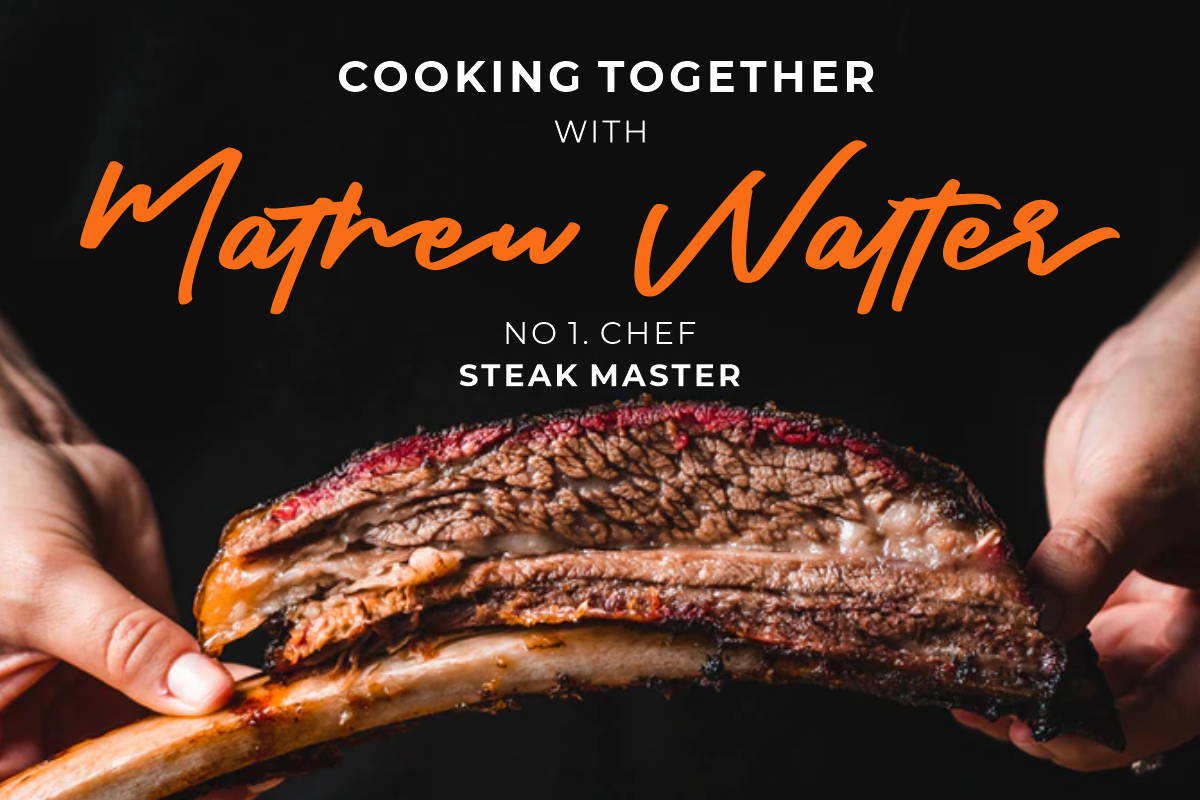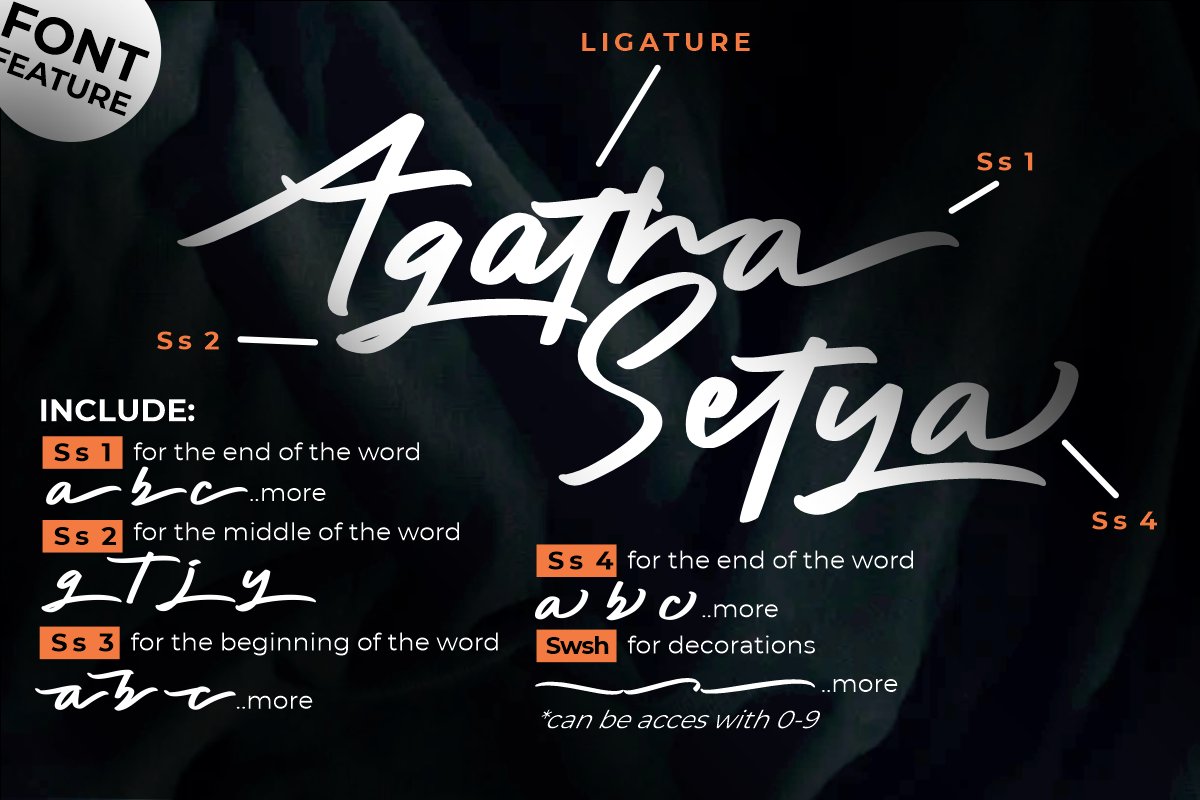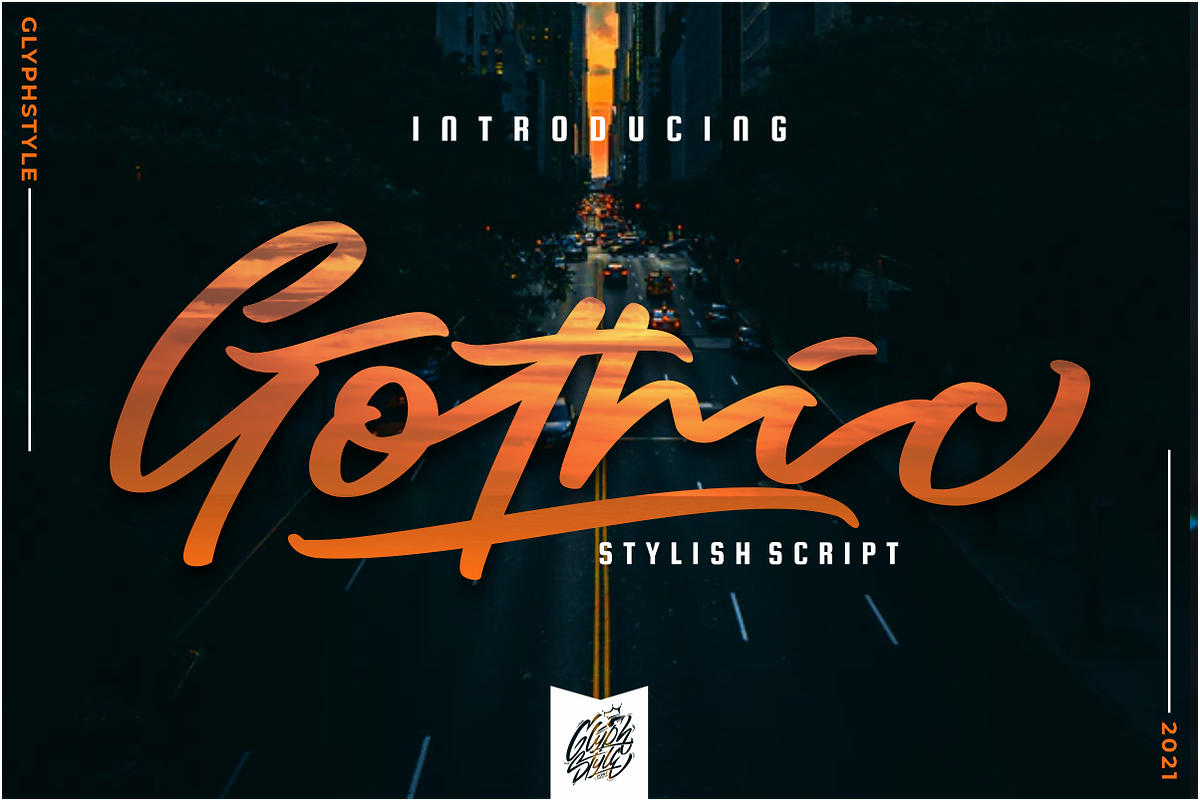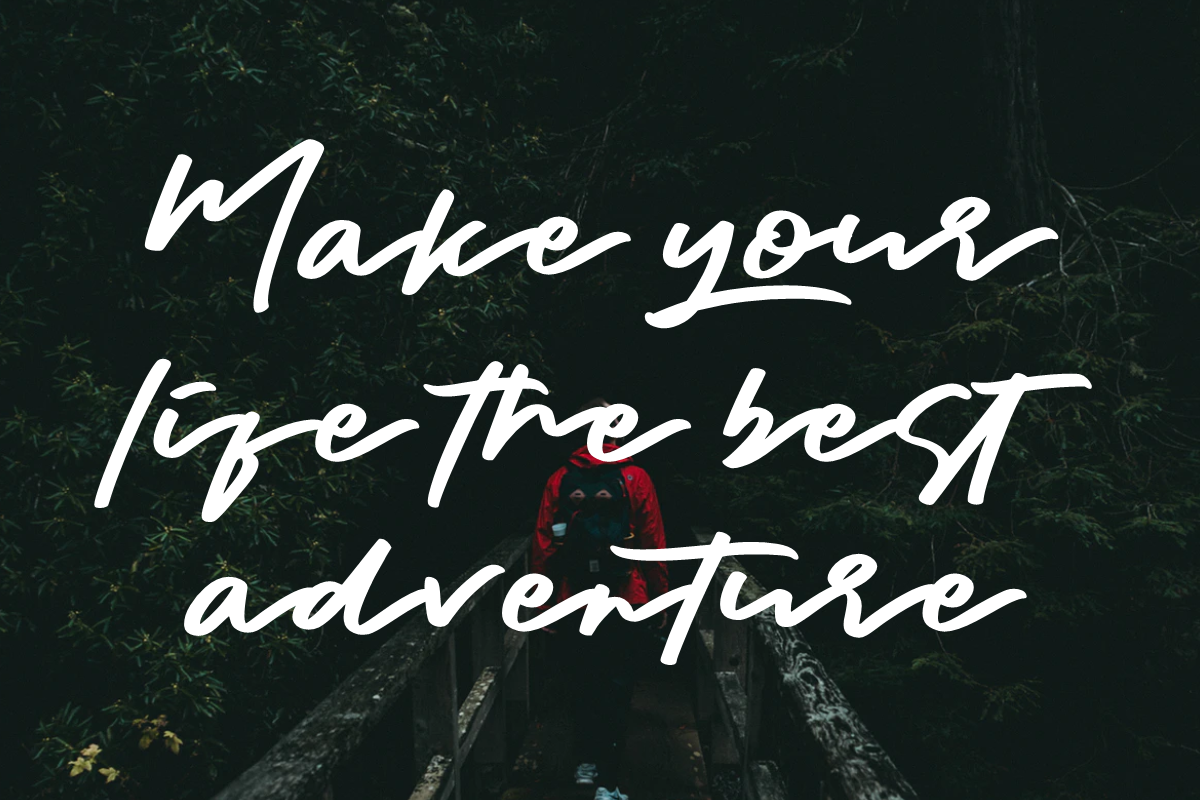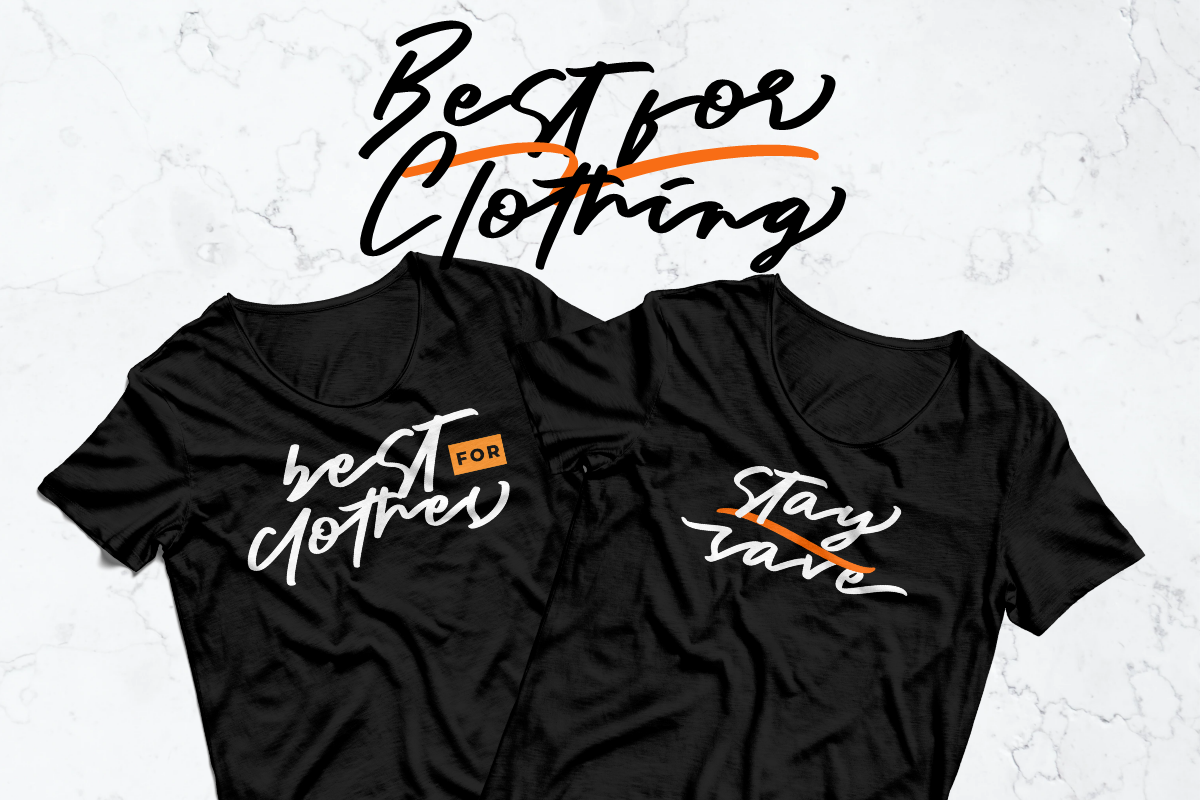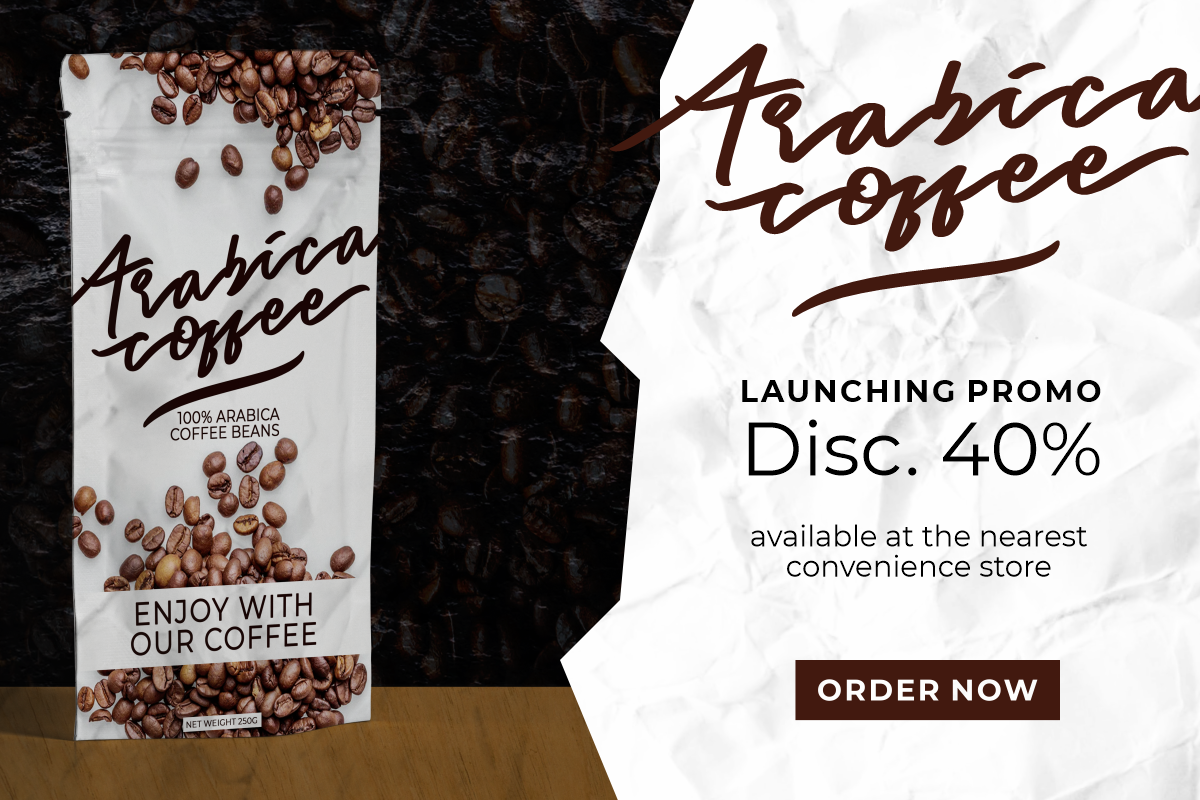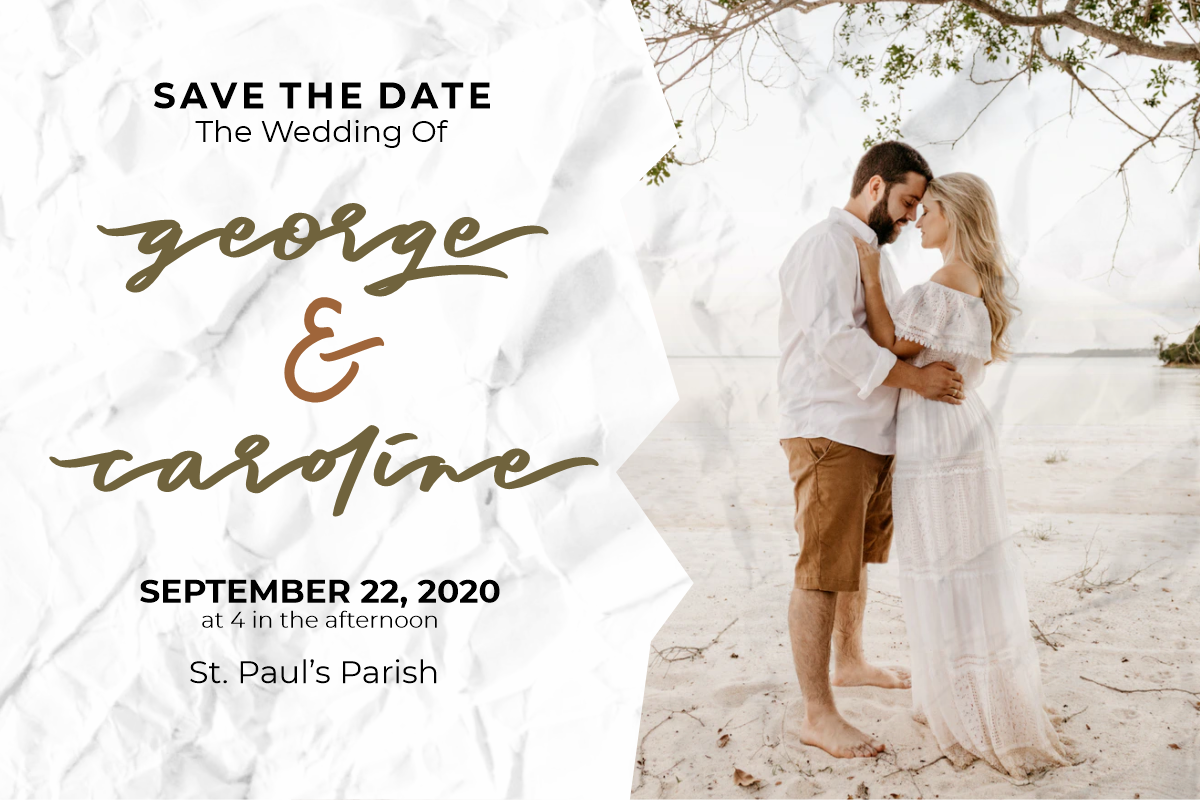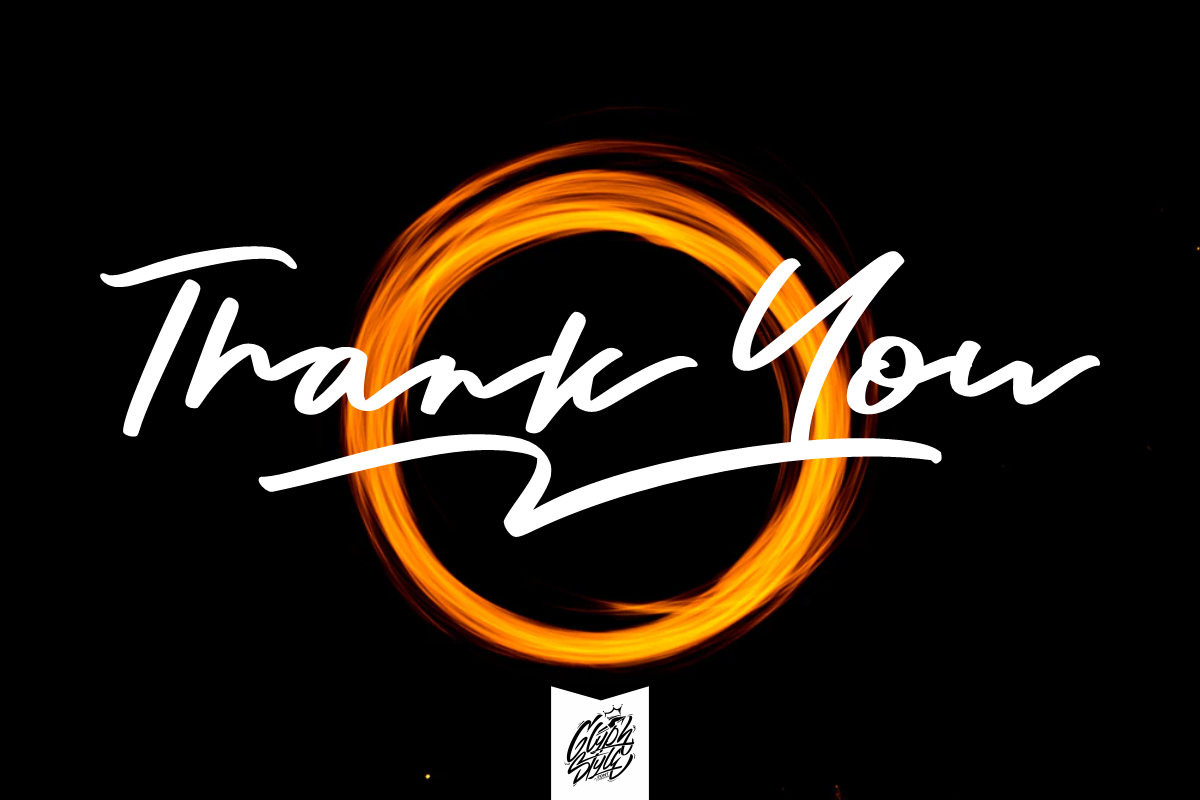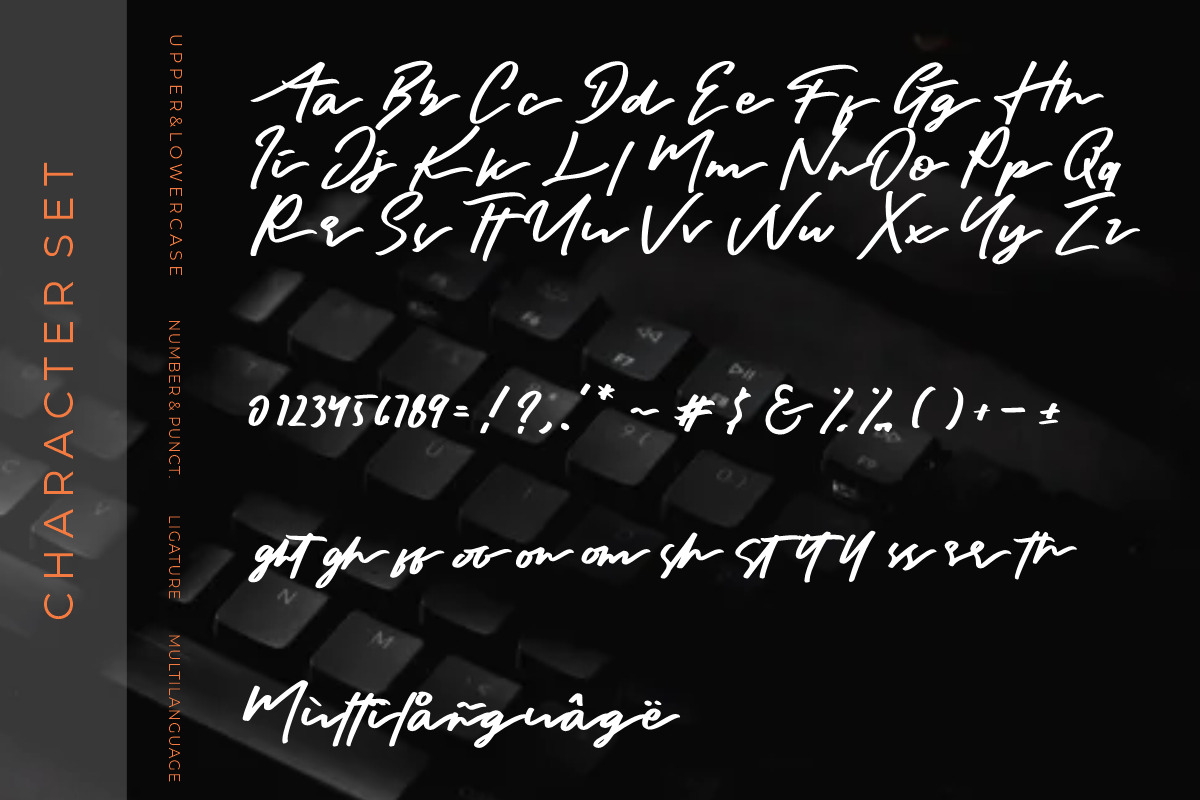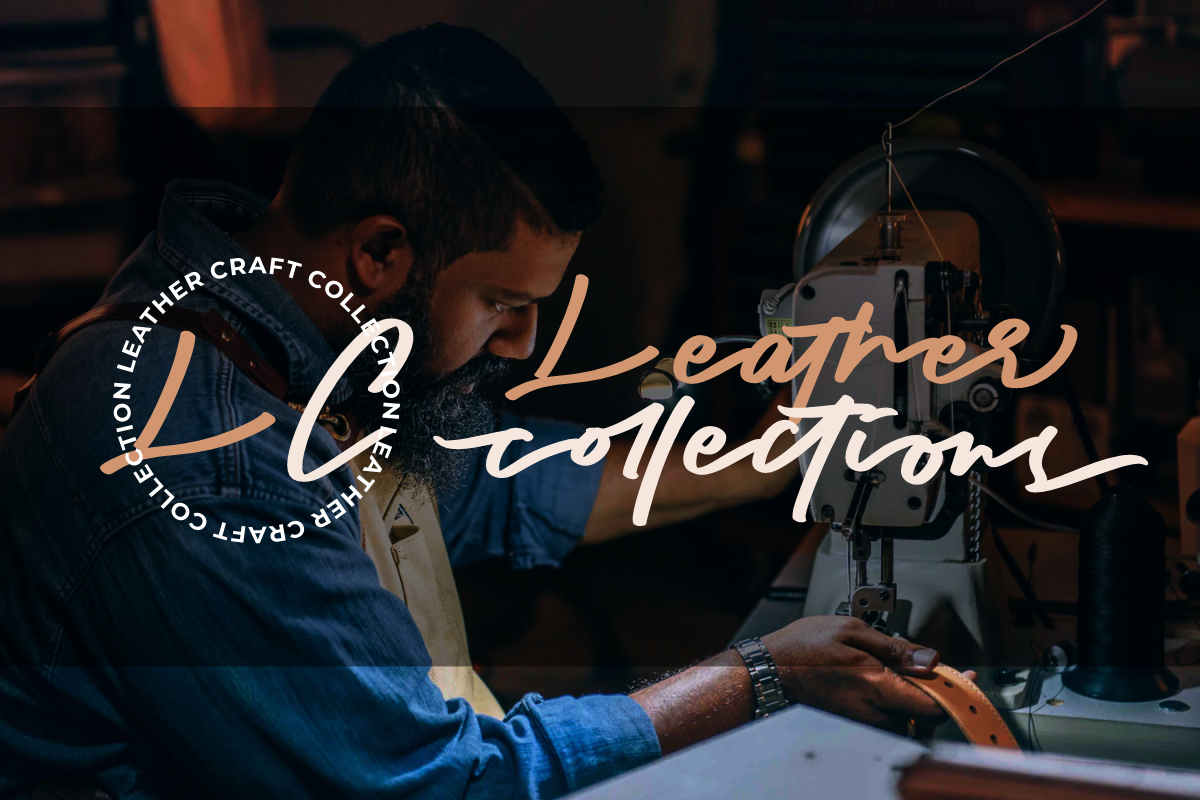
Gothic Stylish Script
Gothic is a stylized script style, with a wide selection of characters. A bold script font that looks cool. Gothic is perfect for branding projects.
This font can be used for branding and logos, wedding designs, social media posts, advertisements, business cards, clothing products, quotes, magazine covers, labels, photography, watermarks, invitations, stationery, and any project that requires handwriting tastes smooth one.
You can access swash by changing numbers 0-9
Lowercase, Uppercase, Numbers & Punctuation, Lowercase alternatives, swash variant ligature Stylistic set 1 (for the end of the word) Stylistic set 2 (for the middle of the word) Stylistic set 3 (for the beginning of the word) Stylistic set 4 (for the end of the word) multilanguage